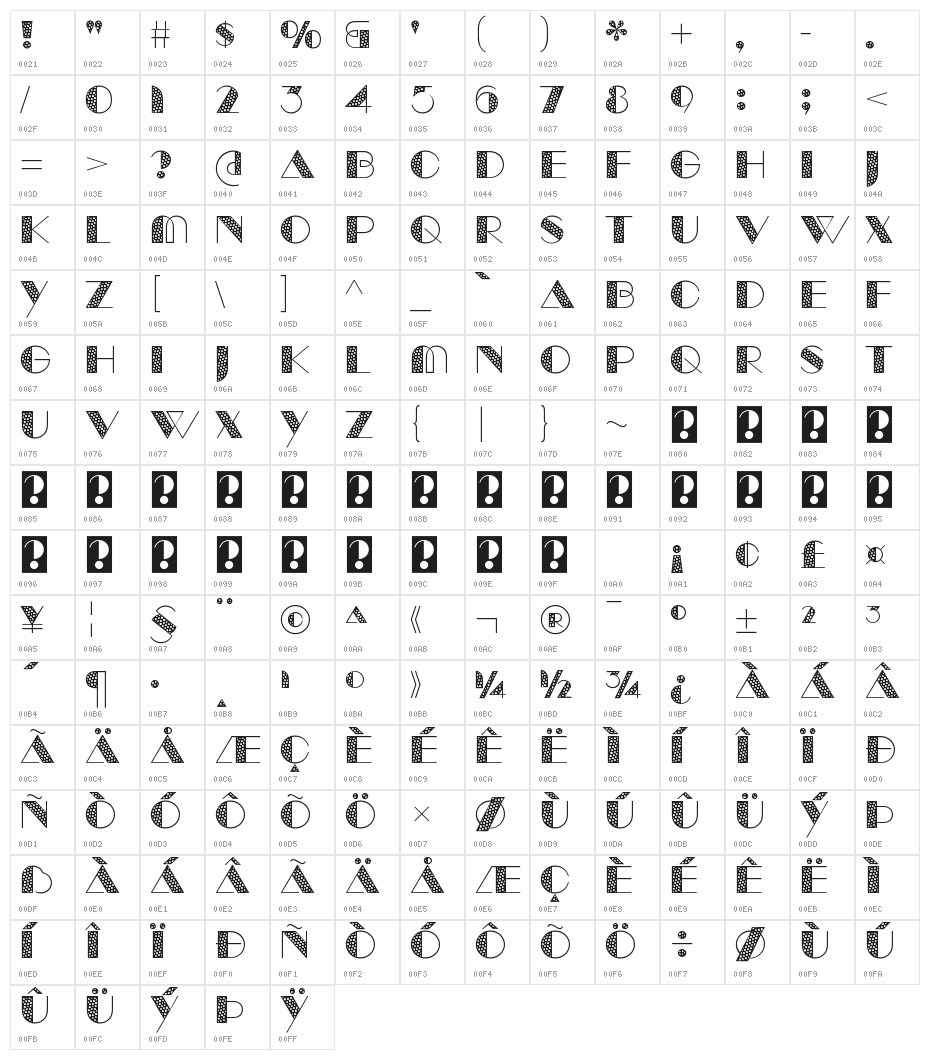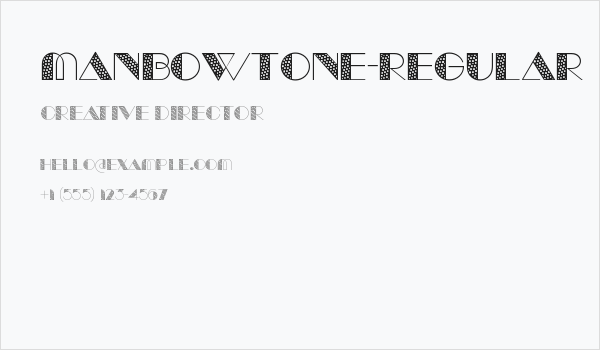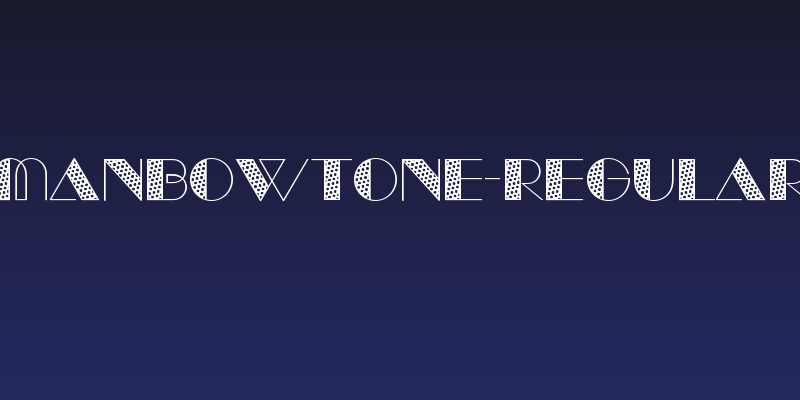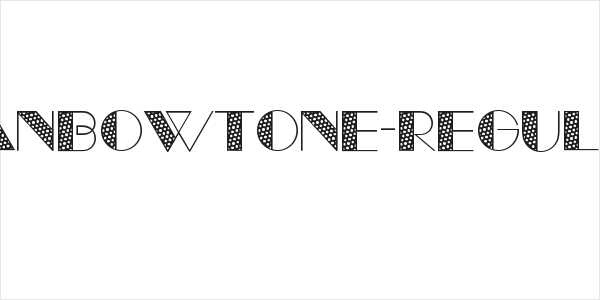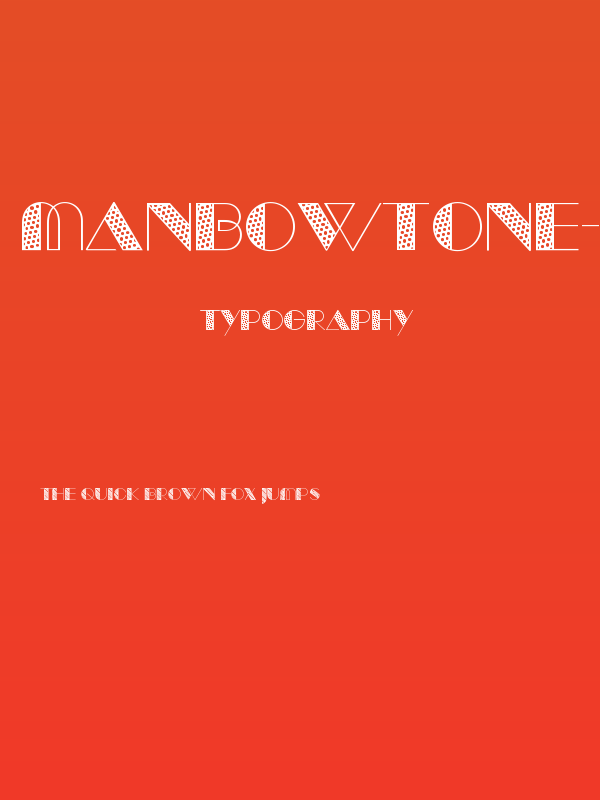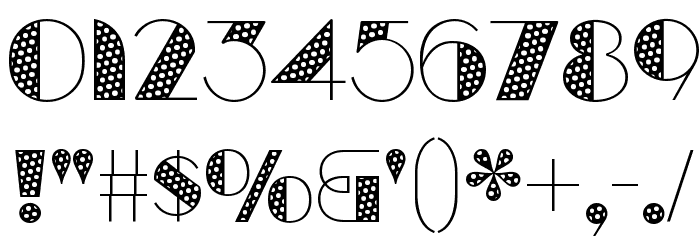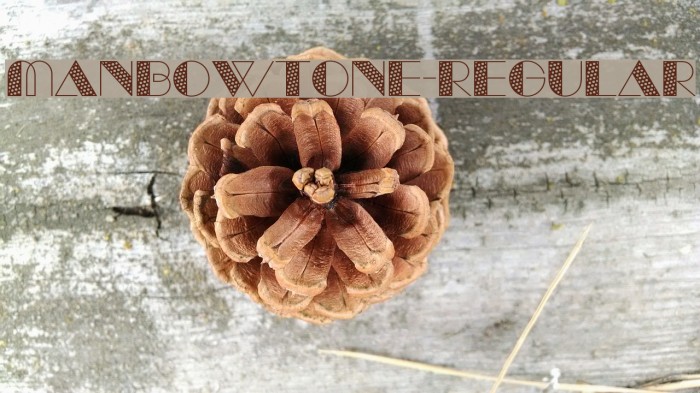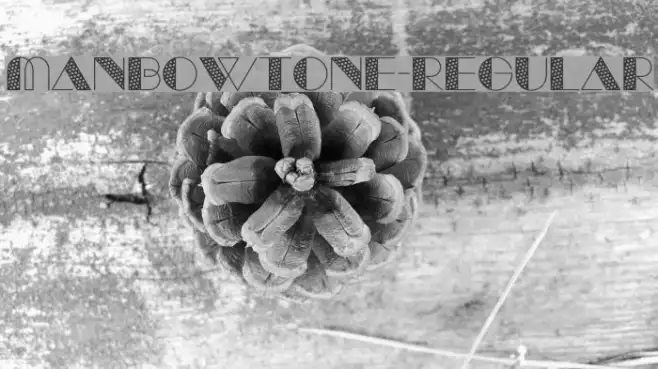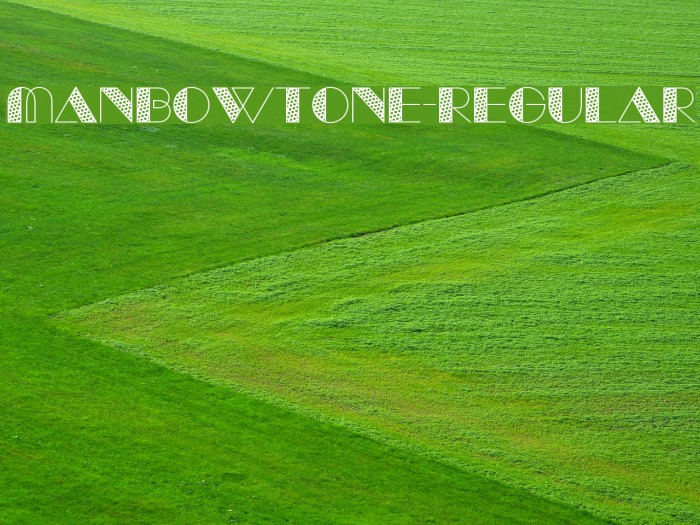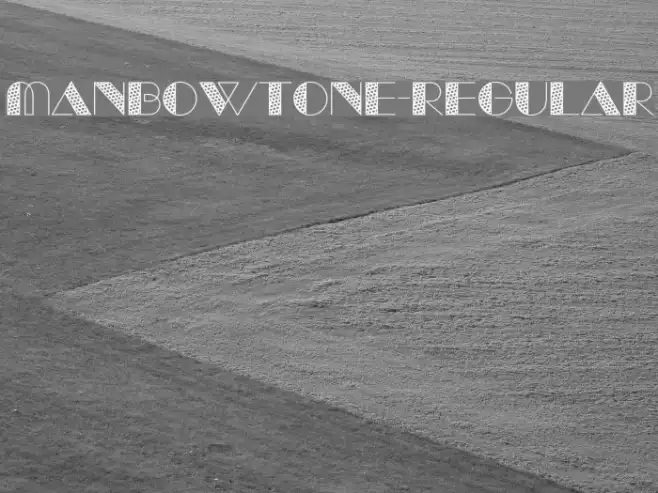
ManbowTone-Regular Font
ManbowTone-Regular Description
This font features a unique and playful design with a dotted pattern filling the interior of each character. The geometric shapes and bold lines create a striking visual impact, making it ideal for attention-grabbing designs. The uppercase letters are particularly distinctive, with a mix of angular and curved elements that add to its decorative appeal. The numerals and special characters maintain the same dotted style, ensuring consistency across all glyphs. This font's creative and artistic flair makes it suitable for projects that require a touch of whimsy and modernity.
| Proposed Projects | Ideal for posters, branding, children's books, and creative digital designs. |